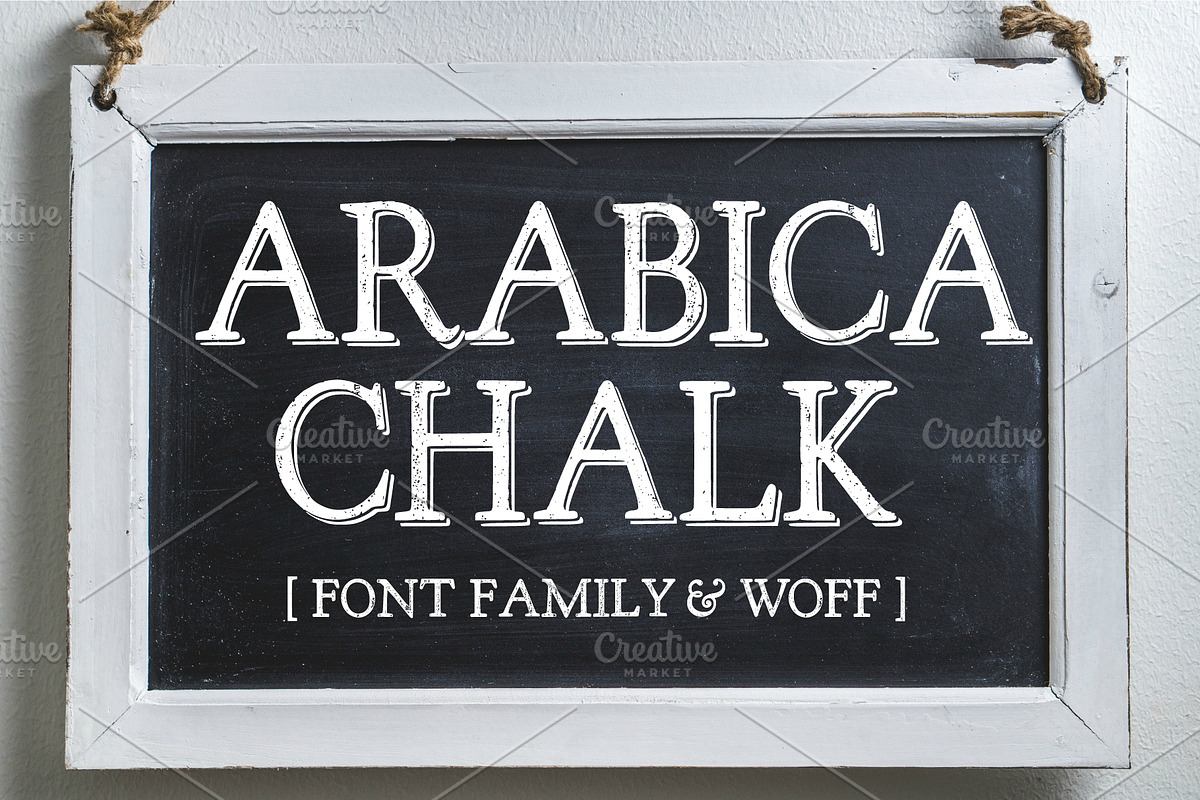
Please note that you must purchase this font for commercial use. You can download Arabica Chalk Serif Font for free, strictly for personal testing purposes only. Arabica Chalk is a unique and stylish serif font that combines the traditional appeal of serif typography with a creative, chalkboard-style texture. With its rough edges and hand-drawn chalk effect, Arabica Chalk Serif Font Free Download is perfect for rustic designs, café branding, menus, event posters, t-shirt designs, and social media graphics that want a bit of a personal, artistic touch.
This font adds personality and a vintage feel to any project while maintaining legibility and structure. It includes uppercase and lowercase letters, numerals, punctuation, and multilingual support, offering versatility for various creative needs.
Whether you're designing for a coffee shop, creating a quirky event poster, or simply adding some chalk-inspired charm to your work, Arabica Chalk brings character and warmth to your typography.